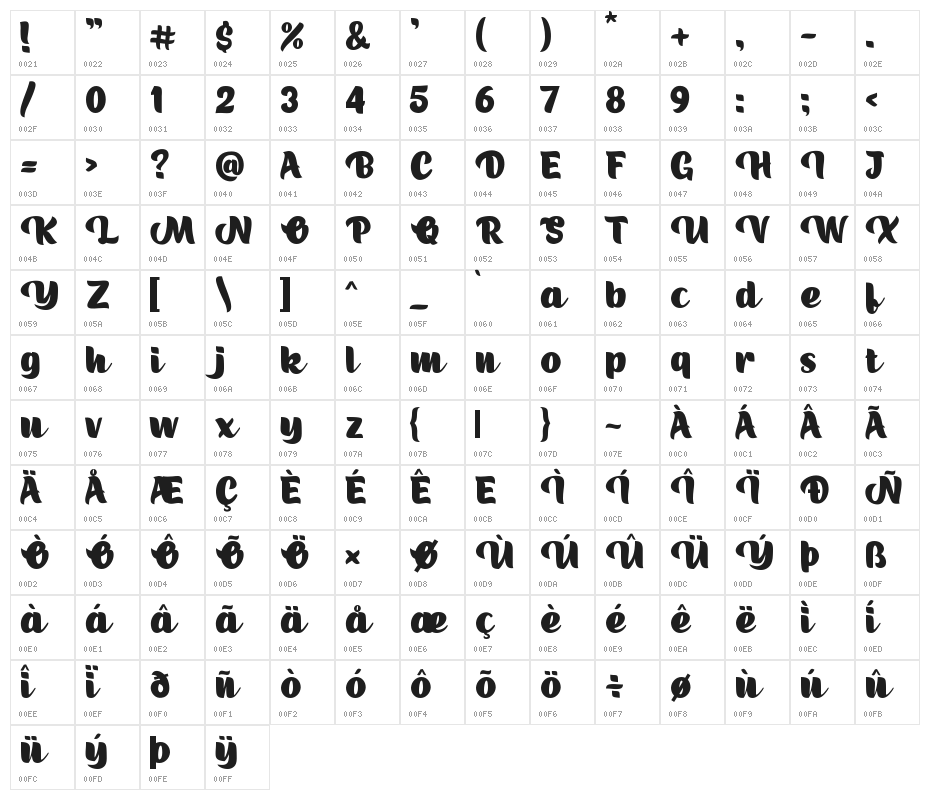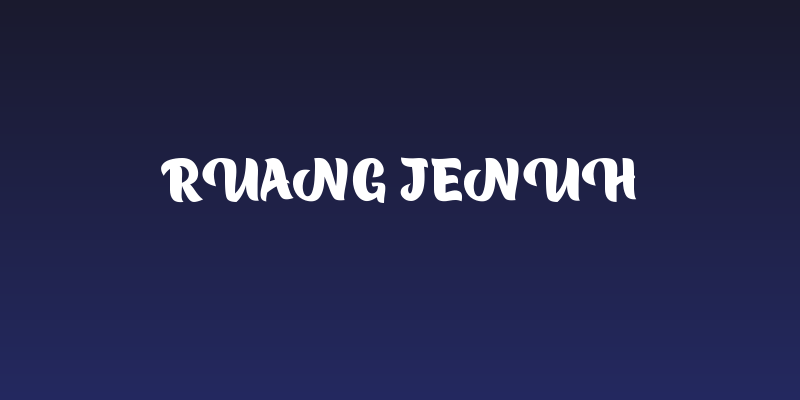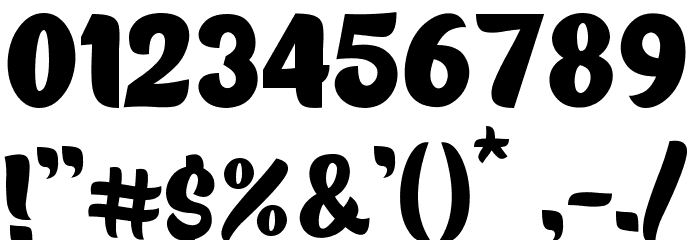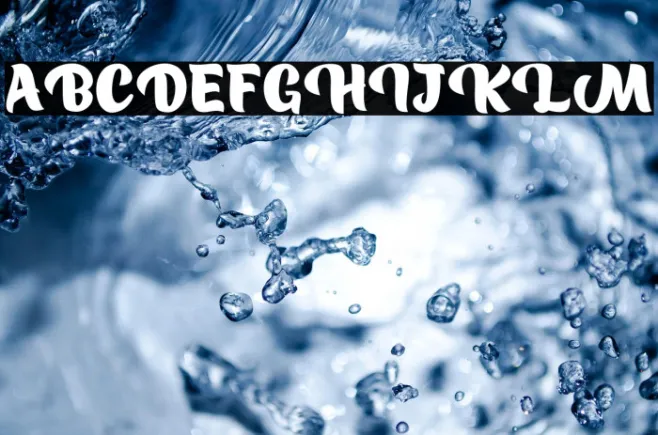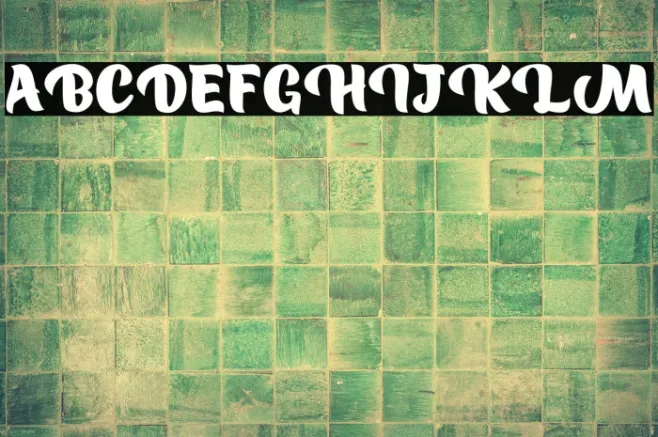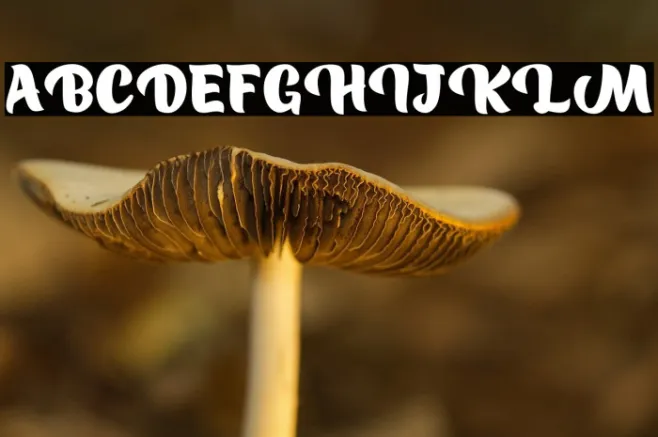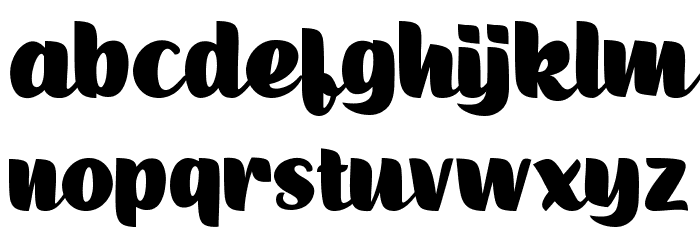
Ruang Jenuh Font
Ruang Jenuh Description
This font exhibits a bold and playful style with a strong presence. The letters are rounded and have a flowing, cursive-like appearance, giving them a lively and energetic feel. The uppercase and lowercase letters maintain a consistent weight, contributing to a cohesive look. The numbers and special characters follow the same bold and rounded design, ensuring uniformity across all elements. This font is ideal for projects that require a fun and engaging aesthetic, such as children's books, playful branding, or creative posters.
| Overall Style | Playful, Energetic |
| Proposed Projects | Ideal for children's books, playful branding, and creative posters. |